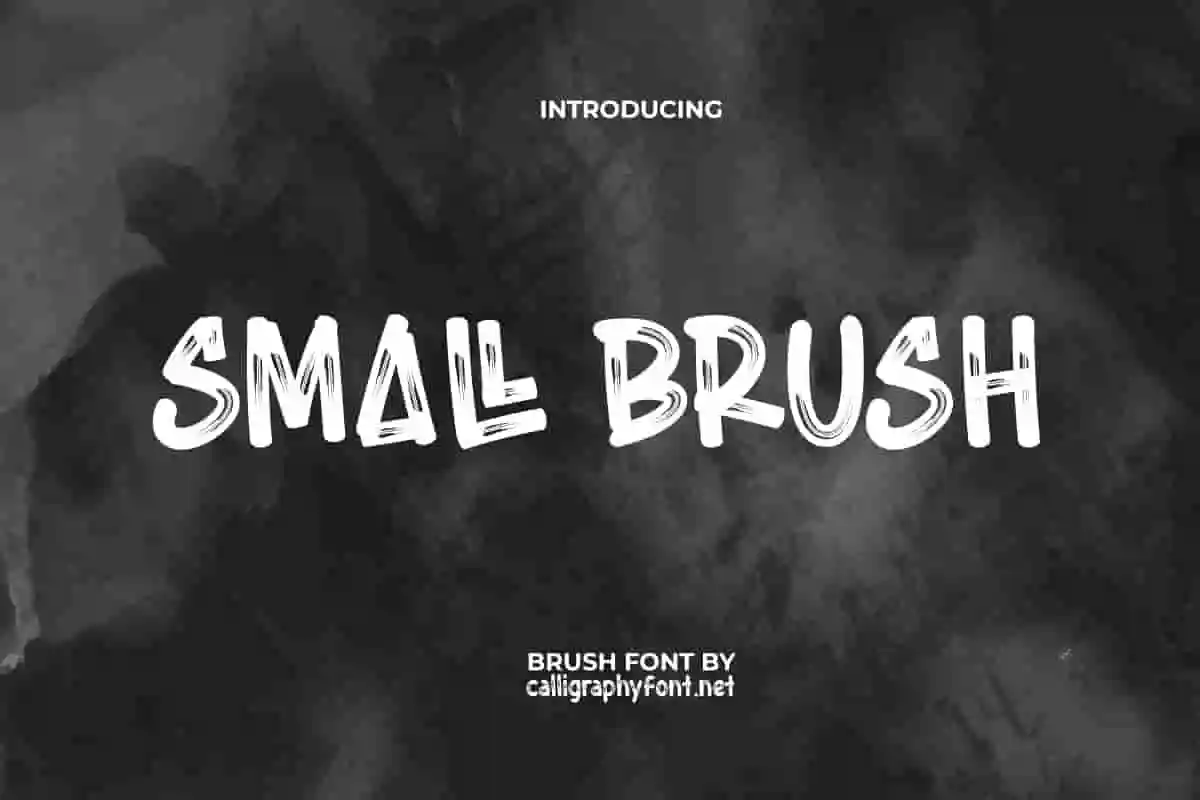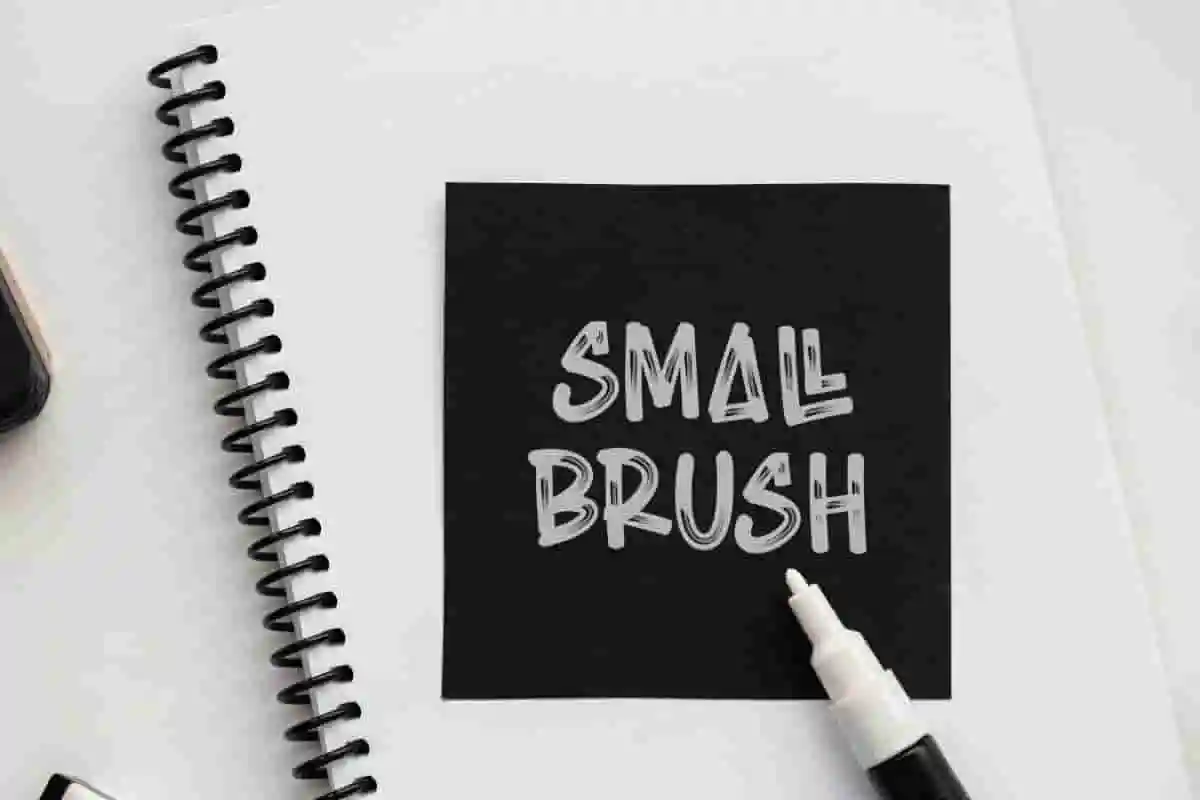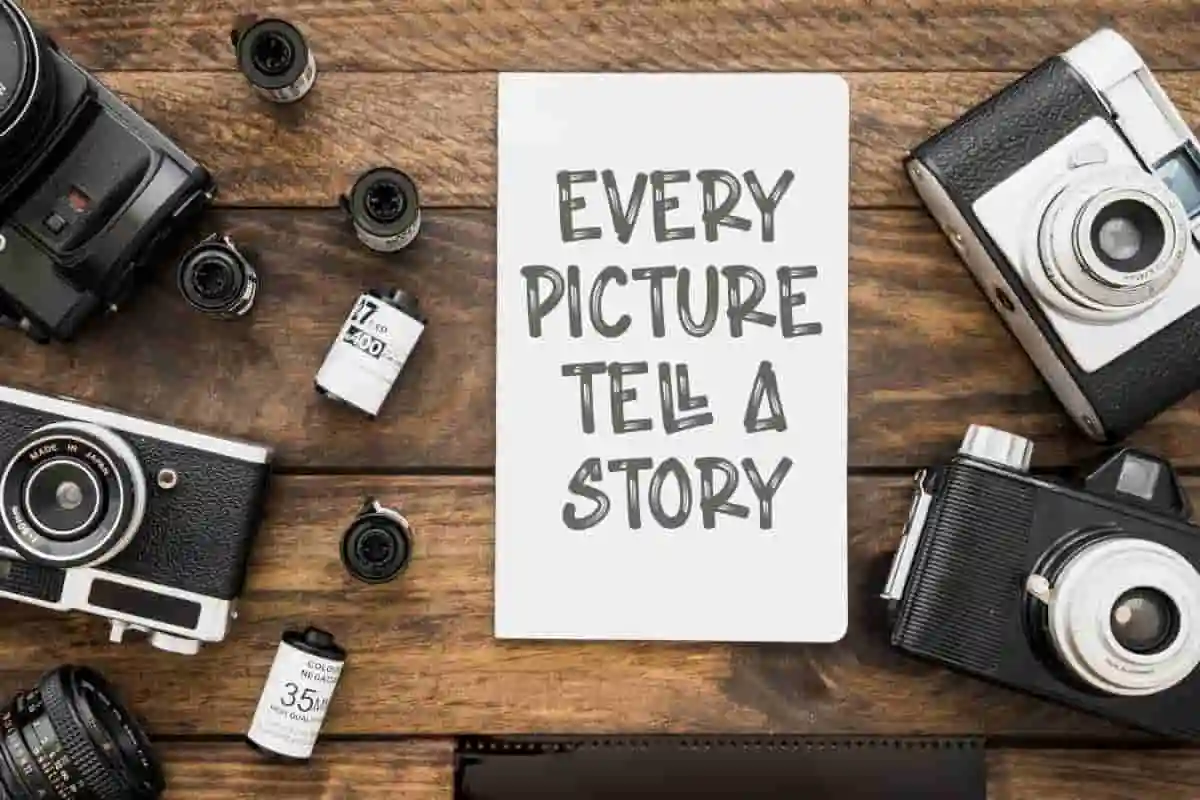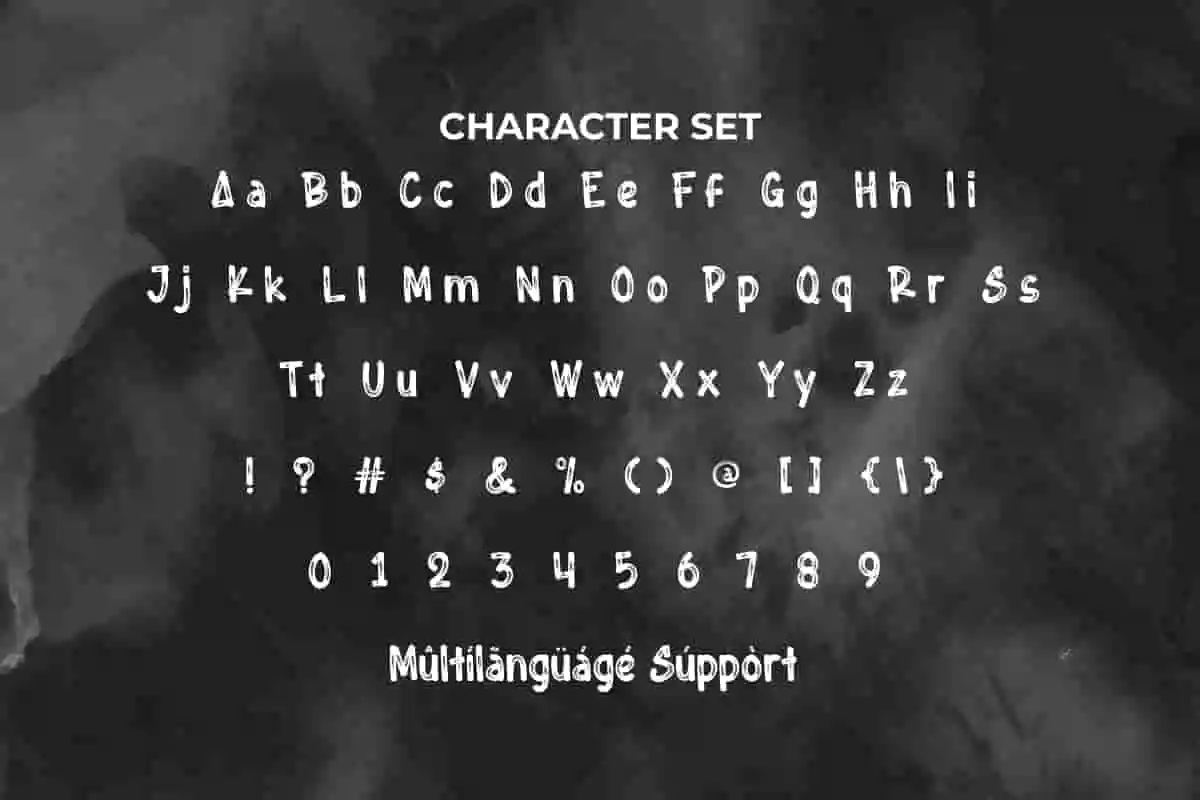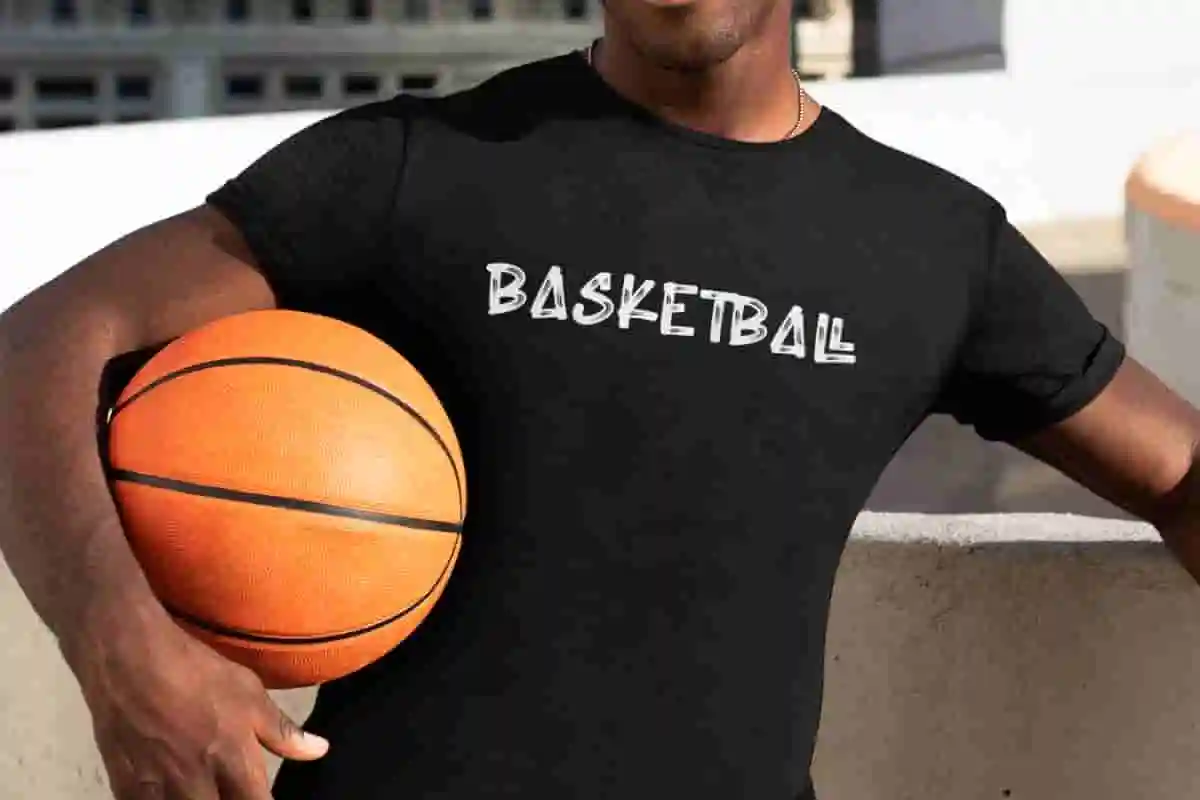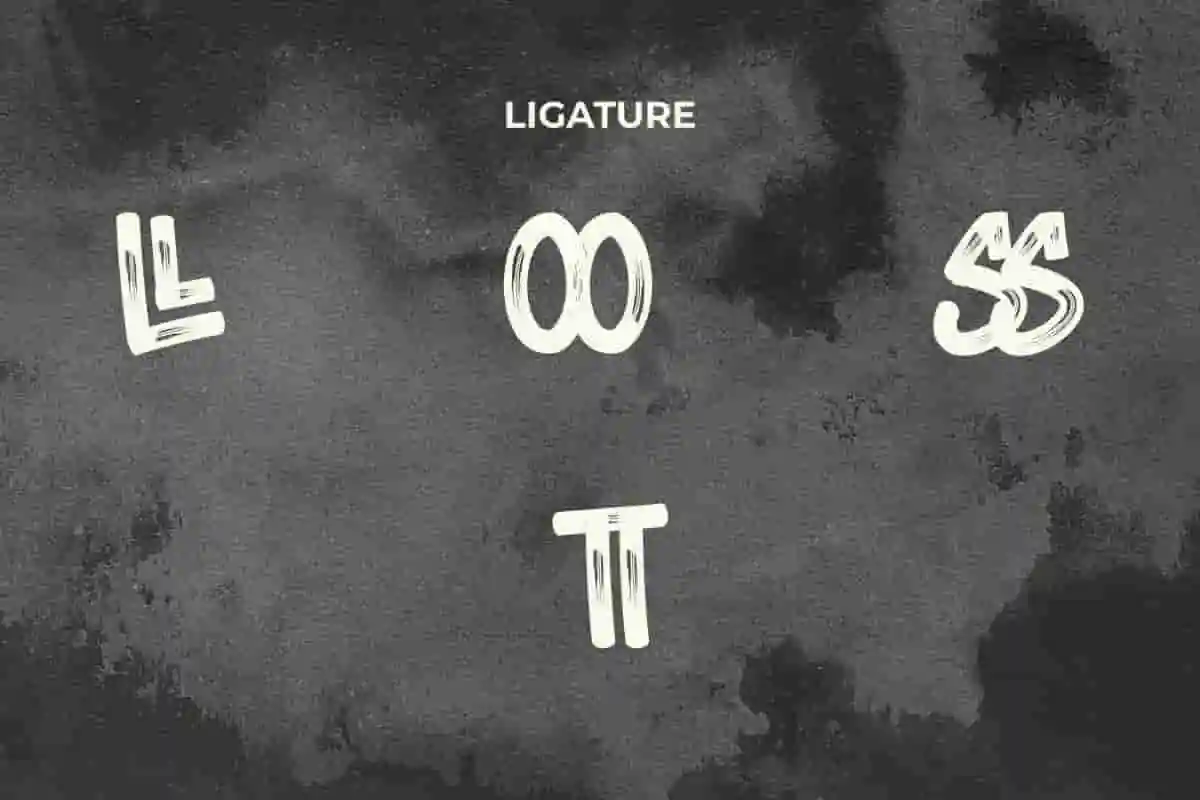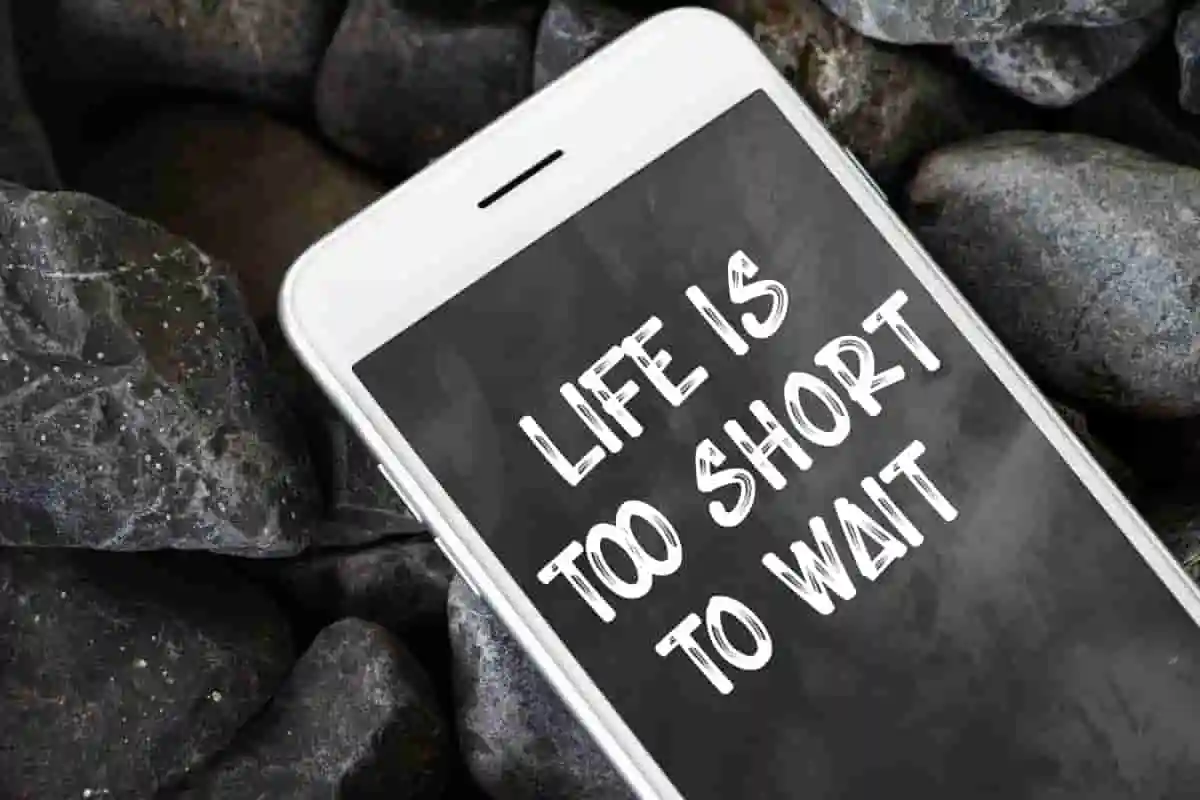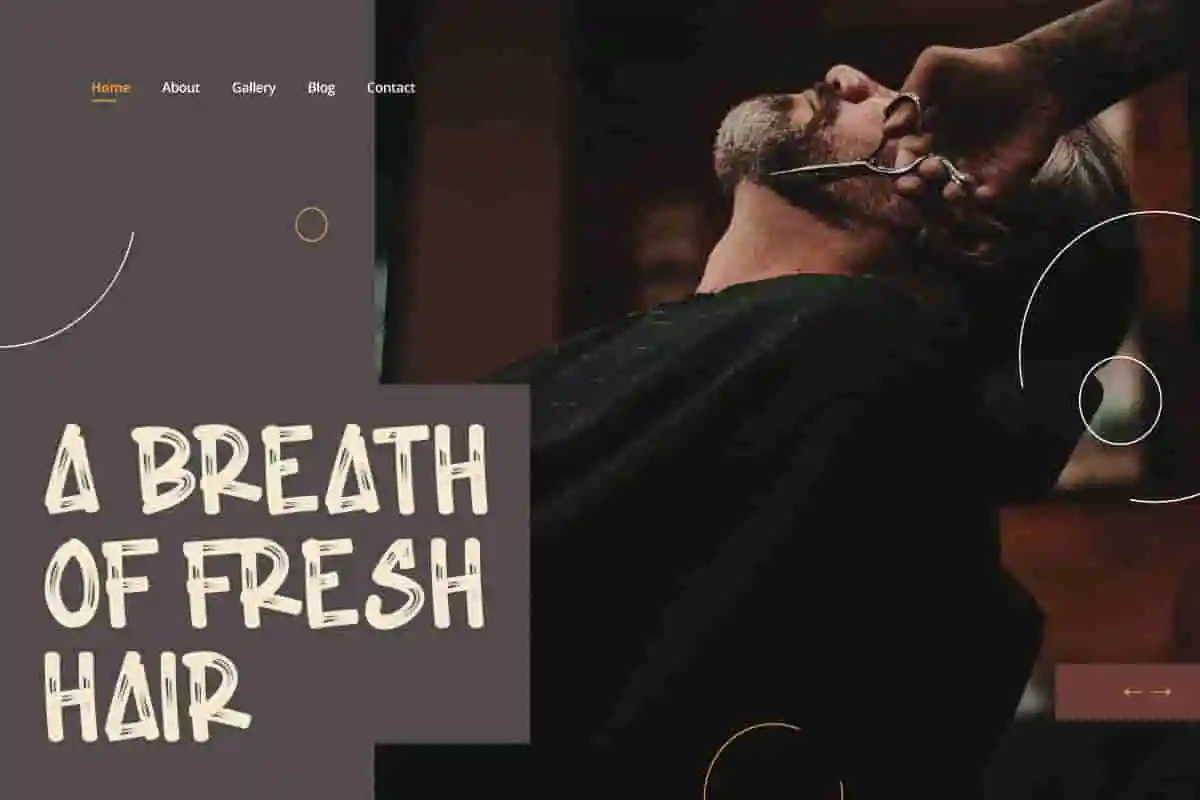
Small Brush Display Font
Small Brush Font is a textured brush marker font with energetic and dynamic style. This font produces a look that exudes power, strength, and mysterious edges.
Small Brush Font is a textured brush marker font with energetic and dynamic style. This font produces a look that exudes power, strength, and mysterious edges. It will support the birth of more flair and individuality to any project, such as advertisements, billboards, book covers, branding projects, brochure, business cards, cover, flyer, greeting cards, header, headline, invitation, label, logos, poster, product designs, quotes, restaurant menu, screen printed t-shirt, signs, stationery, title, watermarks, website, etc.
Introducing Small Brush Display Font, a handcrafted brush typeface that combines effortless style with bold personality. This stunning display font is designed to bring a touch of creativity, energy, and authenticity to all your design projects. Whether you’re working on branding, social media graphics, posters, or packaging, this brush font delivers a modern edge that captures attention instantly.
With its natural strokes and imperfect details, Small Brush Display Font gives your work a hand-painted feel that’s both trendy and timeless. Each letter was carefully crafted to look dynamic and expressive, making it the perfect choice for designers who want to stand out. From casual logos to stylish invitations, Small Brush Font adapts beautifully to any creative idea.
One of the greatest advantages of Small Brush Display Font is its versatility. You can use it for digital designs, print media, merchandise, apparel, advertising, or personal projects. The brush texture adds depth and personality, making your text feel alive and engaging. If you’re aiming to create designs with character and originality, this font will become your go-to creative tool.
Small Brush Display Font is a trending font with an authentic look in each letter. This will play a role in supporting a person’s creative side which embodies artistic freedom and originality. A font that will take any business to the next level, such as apparel, barber, cafeteria, clothing brand, event organizer, fashion, graphic design, handicraft, movie, music, photography, printing, publishing, restaurant, sportswear, and much more.
Small Brush Display Font comes with a complete set of Uppercase and Lowercase Basic Characters, Number, a large range of Punctuation, Symbol, and Ligature. It is supported with multilingual characters and ready to use both on Windows machine or Mac with simple installations. It’s tested to work well in the Adobe Apps (Illustrator, Adobe InDesign, Adobe Photoshop) CorelDraw, and others. PUA Encode Characters means you can access all the characters easily – Fully accessible without additional design software.